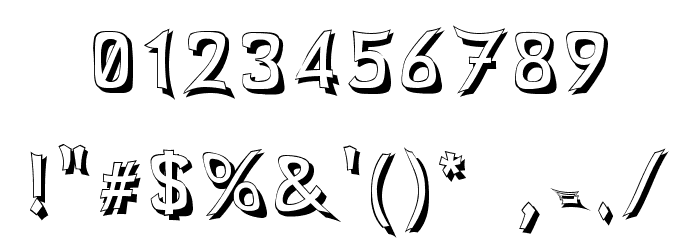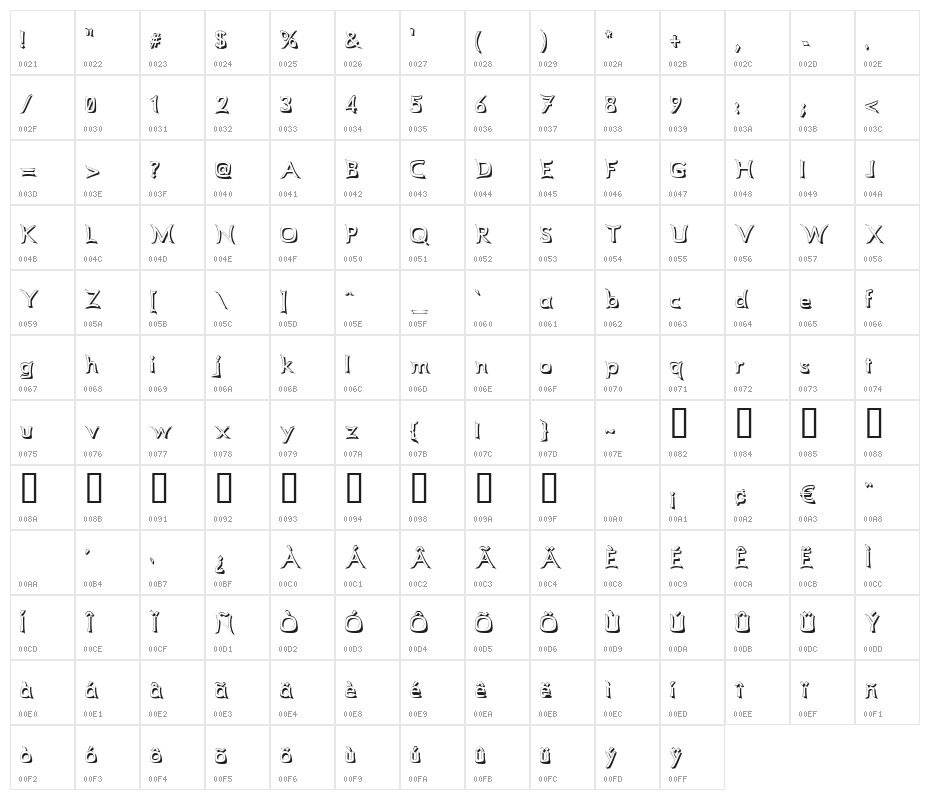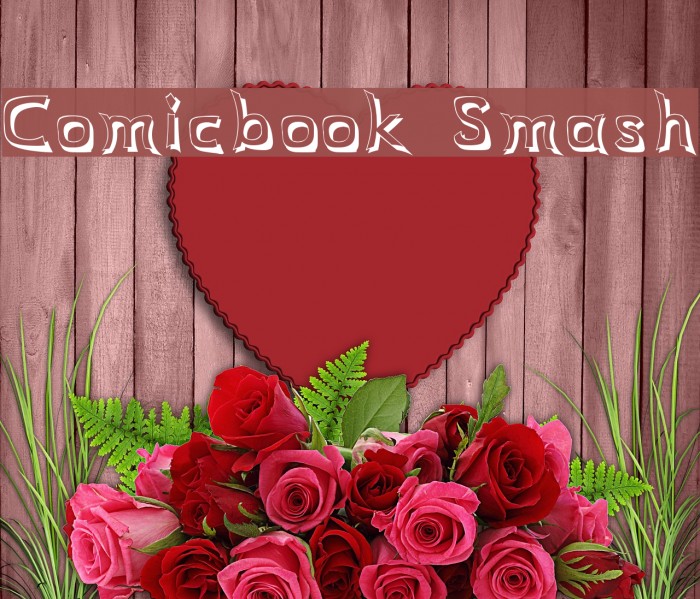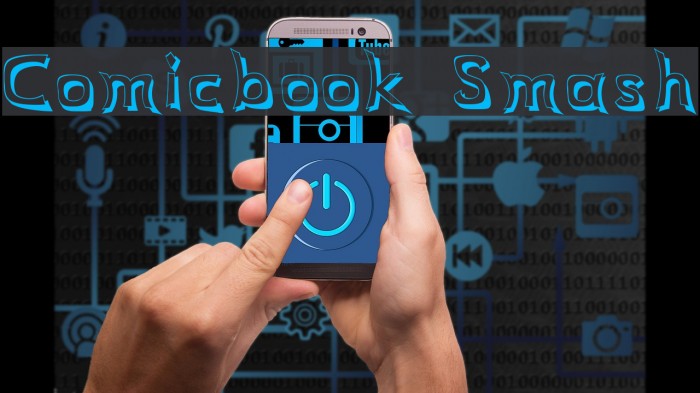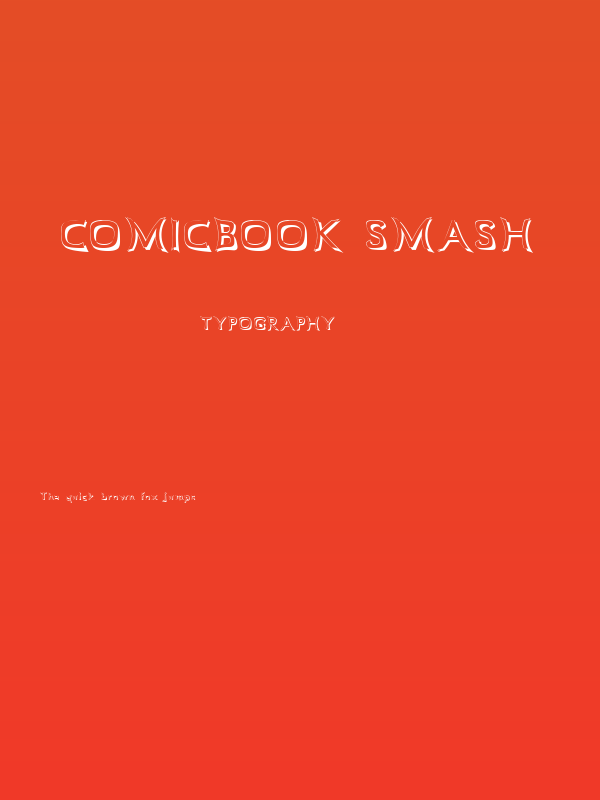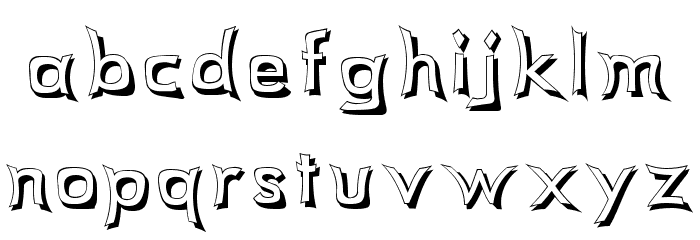
Comicbook Smash Font
Comicbook Smash Description
This font exudes a dynamic and energetic style, reminiscent of classic comic book lettering. The characters are bold and impactful, with a three-dimensional effect created by shadowing that adds depth and drama. Each letter is uniquely stylized, featuring sharp angles and exaggerated curves that convey a sense of movement and excitement. The uppercase and lowercase letters maintain a consistent design, ensuring readability while still capturing attention. Numbers and special characters are equally expressive, making them suitable for a variety of creative applications. The font's playful yet assertive nature makes it ideal for projects that require a strong visual presence.
| Proposed Projects | Ideal for comic book titles, posters, video game graphics, and any project needing a bold, playful aesthetic. |